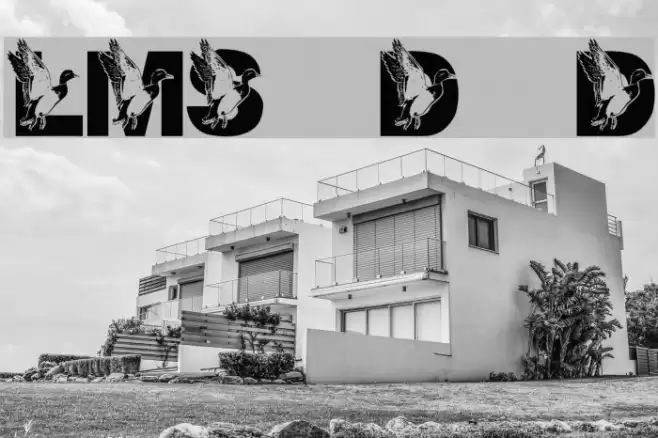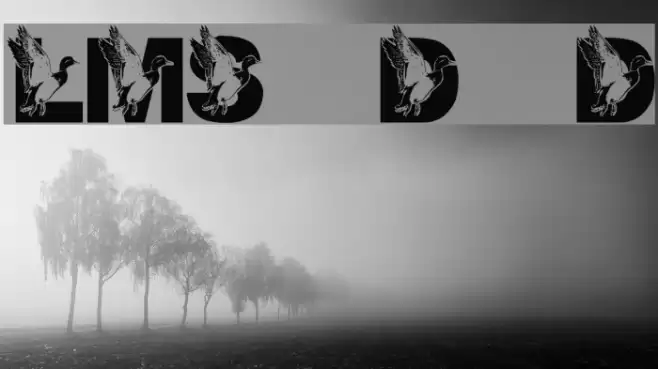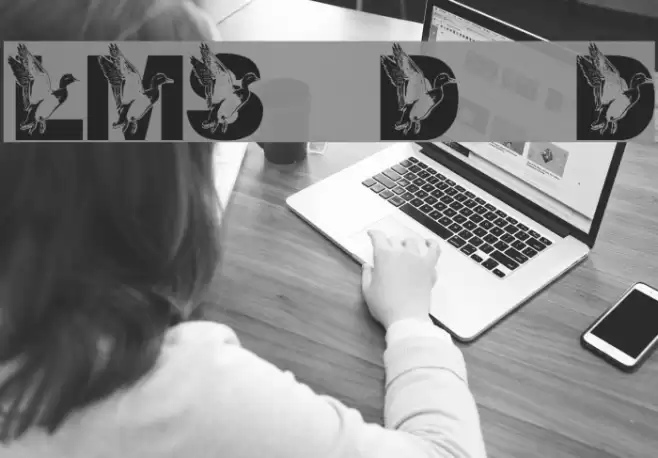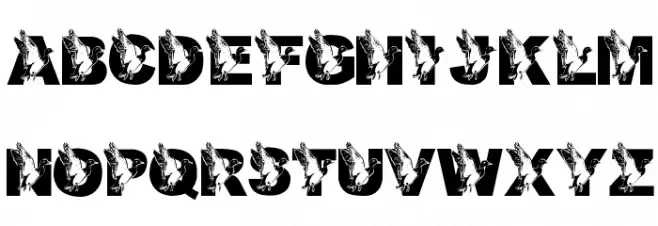
LMS Dad's Duck Font
LMS Dad's Duck Description
This font features a bold and playful design with a unique twist. Each letter is adorned with a duck motif, creating a whimsical and eye-catching appearance. The characters are uppercase only, with a strong, blocky structure that ensures readability while maintaining a decorative flair. The use of the duck imagery adds a layer of charm and creativity, making it ideal for projects that require a fun and engaging visual element. The font's boldness and distinct style make it stand out, perfect for headlines or titles that need to capture attention.
A bold, decorative font with duck motifs on each letter, perfect for playful designs from Uncategorized fonts.
- Proposed Projects: Ideal for children's books, playful posters, themed party invitations, or any project needing a whimsical touch.